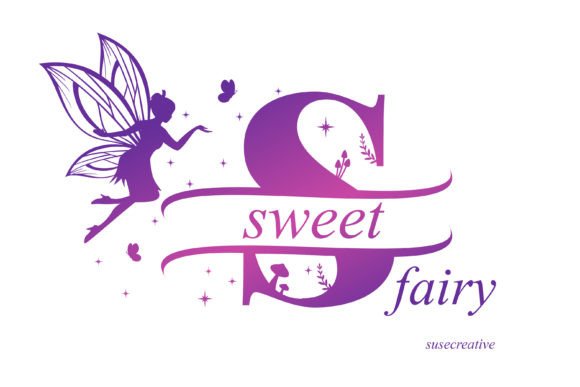
Introducing Sweet Fairy Monogram Font, the perfect choice for those seeking a beautiful and fun decorative font to elevate their designs. Created by the talented susecreative, this font will captivate your senses and leave a lasting impression on anyone who lays eyes on it.
With its authentic feel and exquisite details, Sweet Fairy Monogram Font is more than just a font – it's a work of art. Each letter is carefully crafted to exude elegance and charm, making it the ideal companion for any project that aims to evoke emotions and leave a lasting impact.
Whether you're designing a memorial card, creating a stunning logo, or adding a touch of magic to your social media posts, Sweet Fairy Monogram Font is the go-to choice. Its versatility allows you to experiment and explore various design possibilities, ensuring that your creations are truly one-of-a-kind.
But what sets Sweet Fairy Monogram Font apart from the rest? It's not just about its visually stunning appearance – this font is designed to evoke emotions and make a deep connection with your audience. Its unique style will transport your viewers to a world of enchantment, where every design becomes a captivating story waiting to be told.
Imagine the joy and excitement your loved ones will feel when they receive a memorial card adorned with Sweet Fairy Monogram Font. It's the perfect way to honor and remember those who have left a lasting impact on our lives. Let this font be the bridge between your heartfelt words and the cherished memories of your loved ones.
Not only does Sweet Fairy Monogram Font add a touch of elegance to your designs, but it also sparks curiosity and draws people in. Its captivating allure will make your audience stop and take notice, ensuring that your message is heard loud and clear. Stand out from the crowd and make a statement with this extraordinary font.
In a world where creativity knows no bounds, Sweet Fairy Monogram Font is your secret weapon. It unlocks a world of endless possibilities, allowing you to create designs that are truly extraordinary. Let your imagination run wild and watch as this font brings your visions to life.